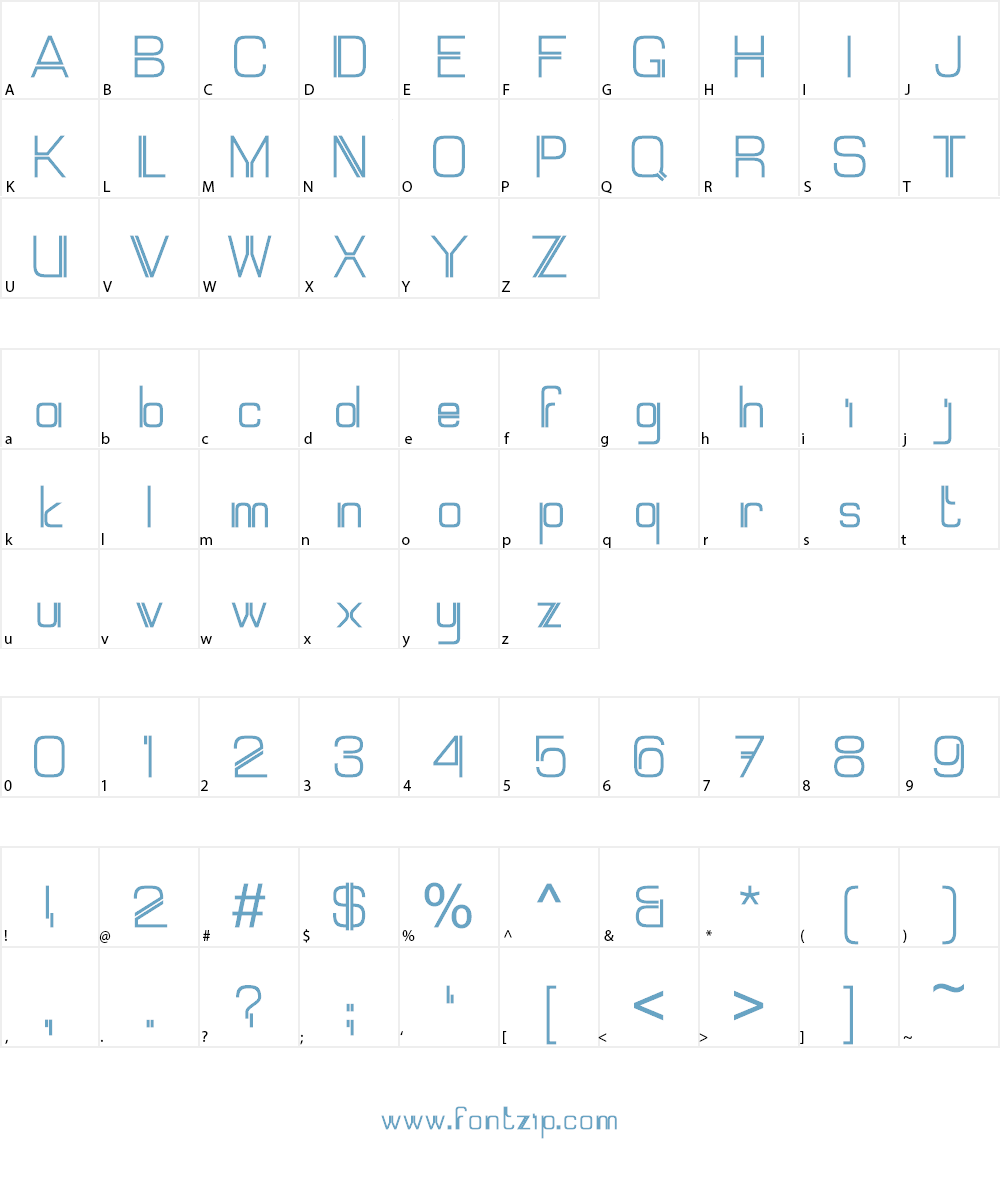
Based on Mallary from page 43 of Dan X. Solo's Moderne Alphabets. I did this font because I like how the letters in the uppercase look. I cannot say the same for the lowercase. Maybe someone would like it, I don't. :)